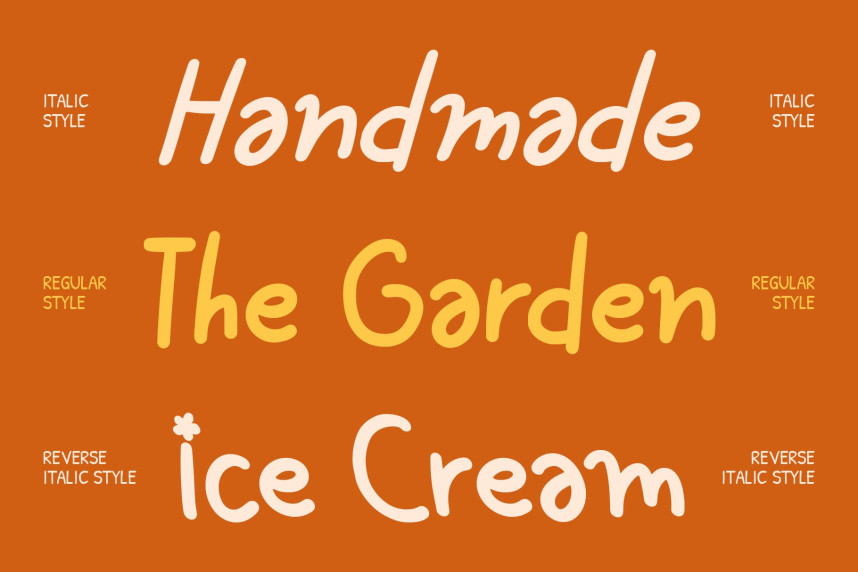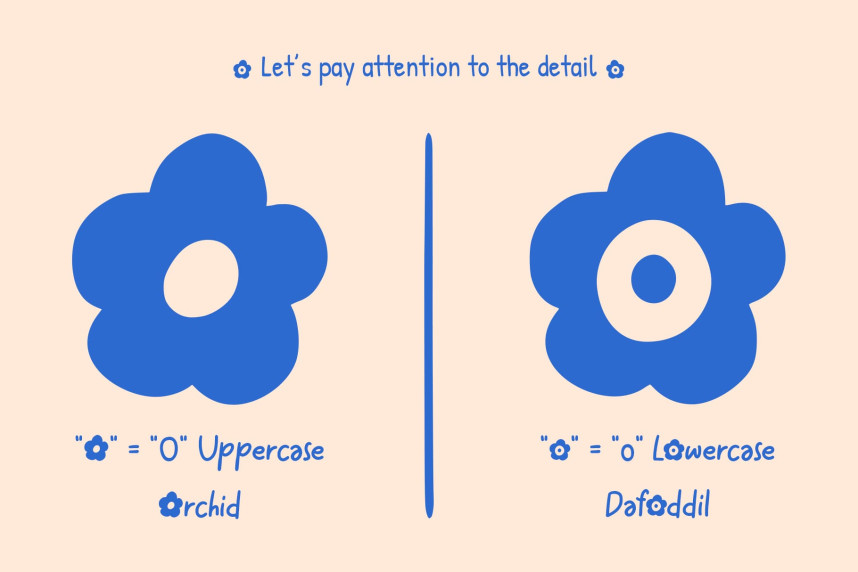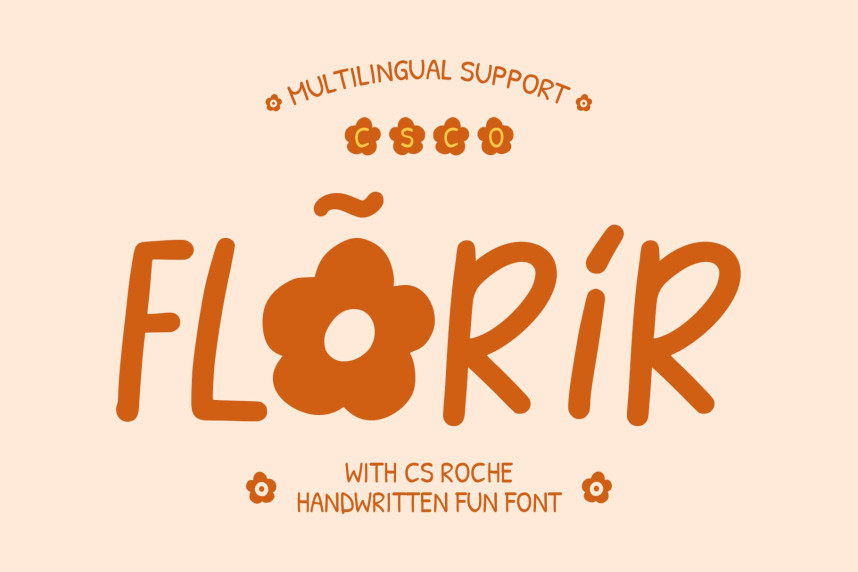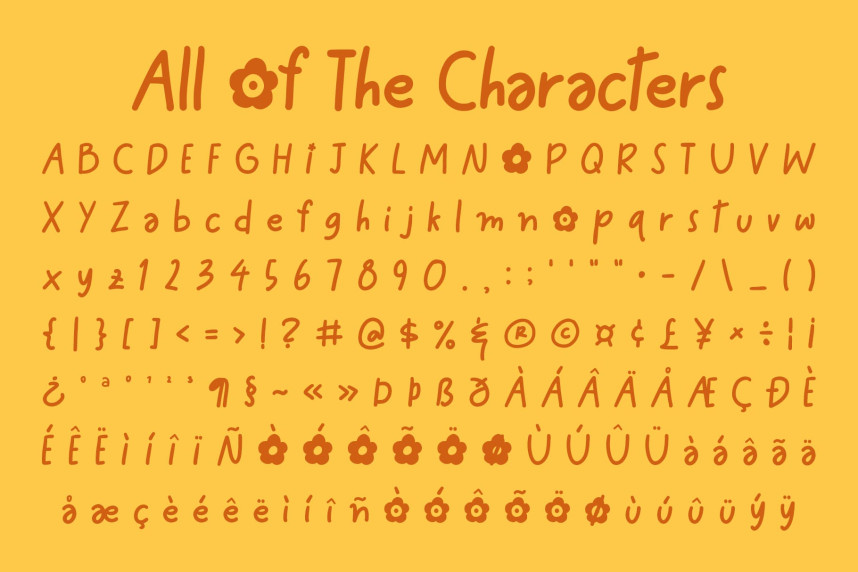
CS Roche Font
CS Roche Font – Playful Handwritten Charm Inspired by Nature Fun Handwritten Font with Fresh Personality. This is a fun handwritten font designed to radiate warmth, creativity, and approachability. Its lively strokes, organic flow and sans serif font capture the spirit of spontaneity, while the subtle inspiration from flowers adds a touch of natural freshness. This combination makes this font perfect for designs that want to feel joyful, personal, and full of life.